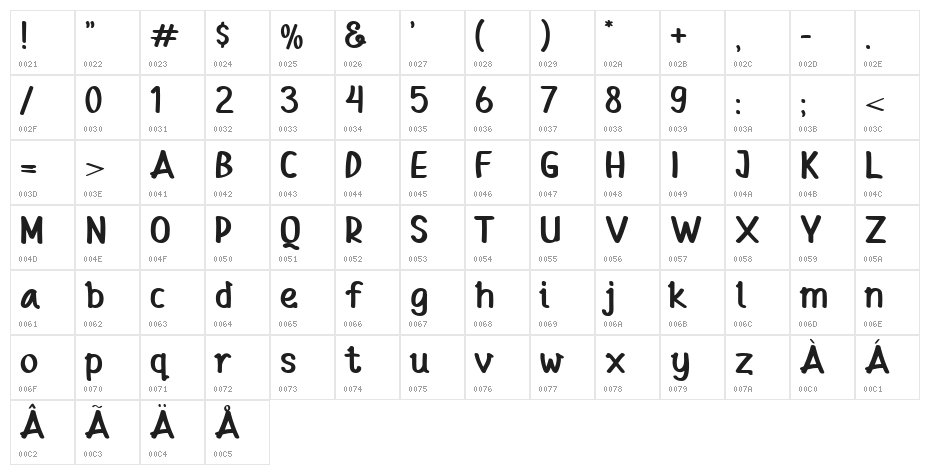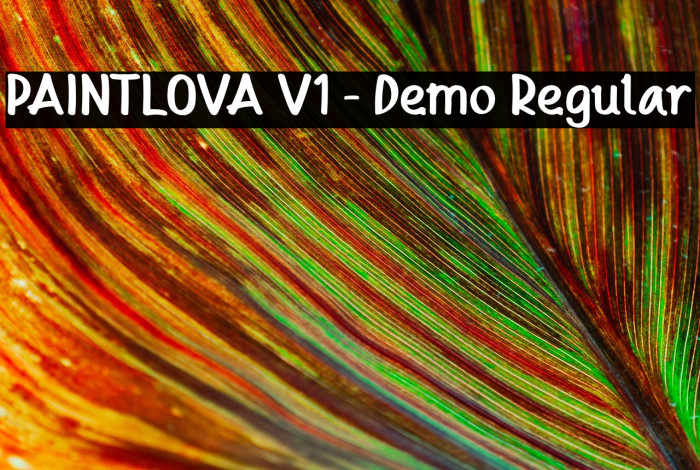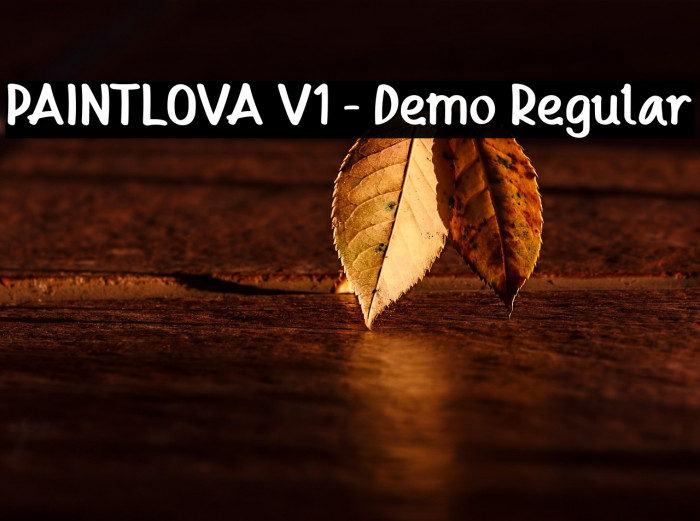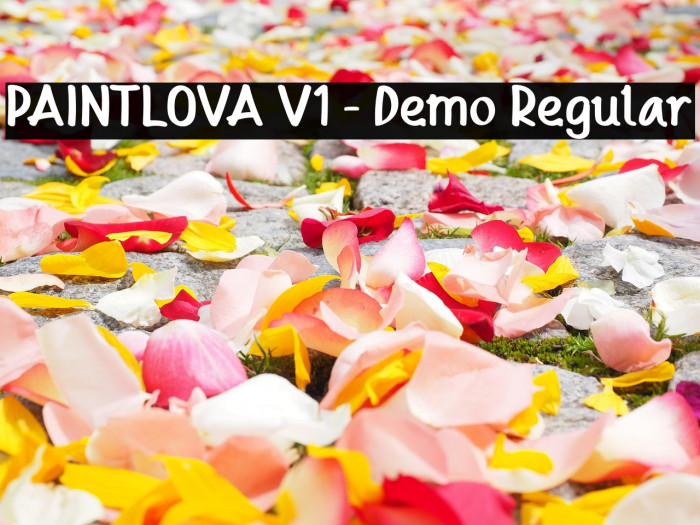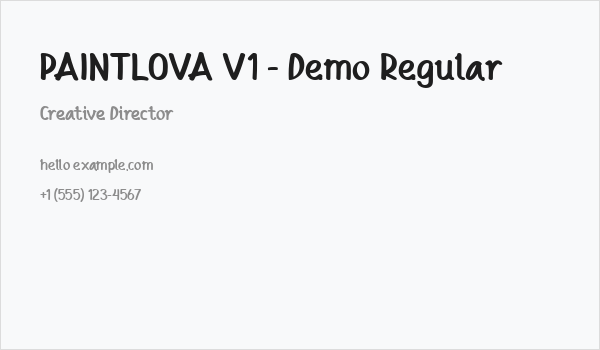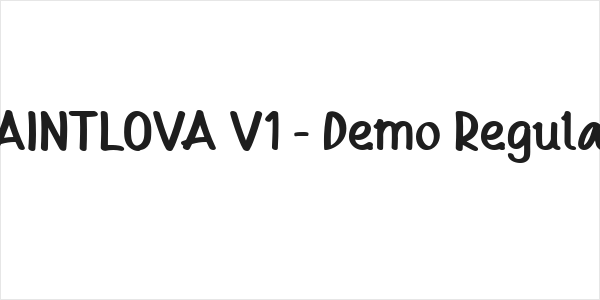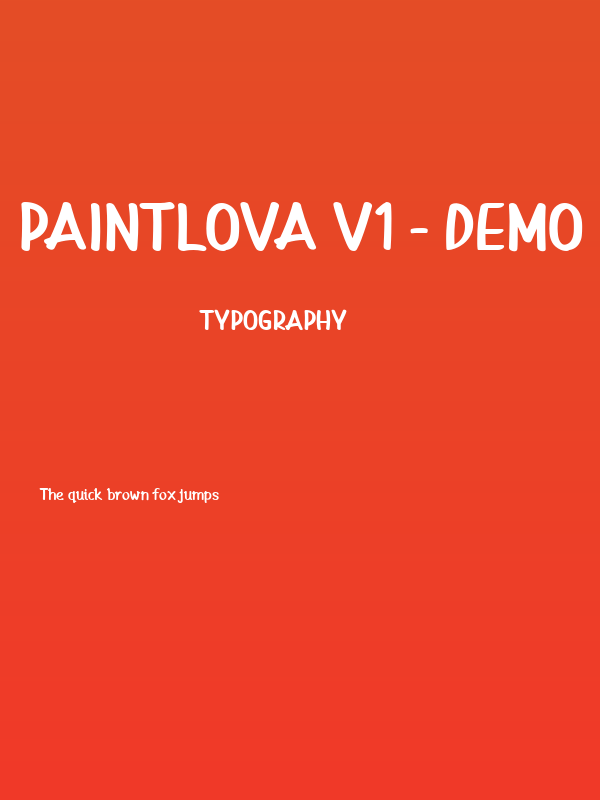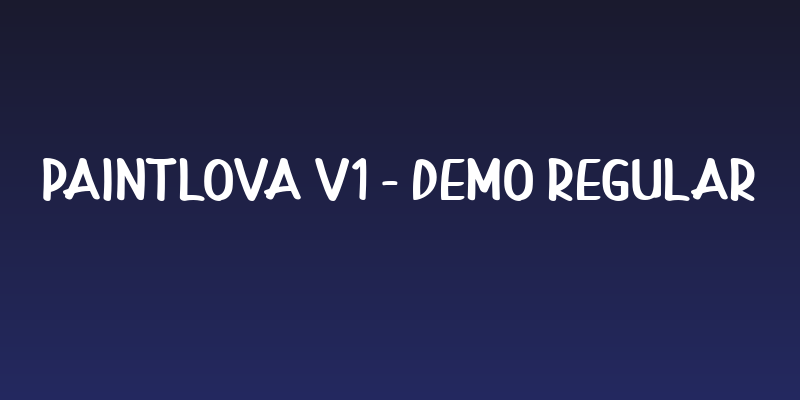
PAINTLOVA V1 - Demo Regular Font
PAINTLOVA V1 - Demo Regular Description
This font features a playful and bold handwritten style, characterized by its rounded and slightly irregular letterforms. The strokes are thick and consistent, giving it a strong presence on the page. The uppercase and lowercase letters maintain a cohesive look, with a casual and friendly appearance. Numbers and special characters are designed to match the overall style, ensuring versatility across different uses. The font's informal and approachable nature makes it ideal for projects that require a personal touch.
| Proposed Projects | Ideal for children's books, greeting cards, playful branding, and social media graphics. |